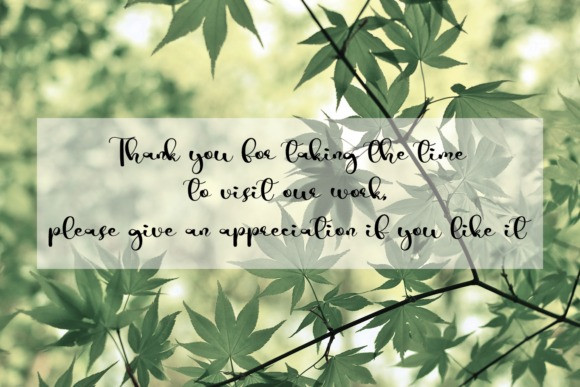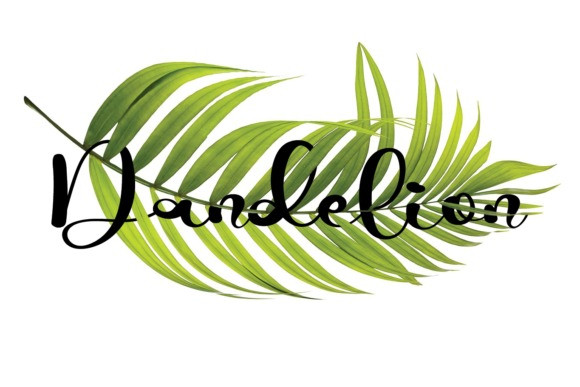
Camello Font
Camello Script Font is a romantic and sophisticated handwritten font that embodies elegance and charm in every character. It will add an incredibly authentic and natural feel to each of your lovely creative projects!